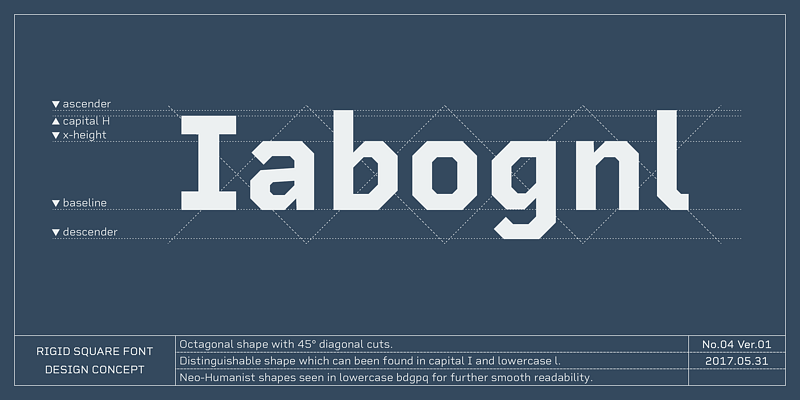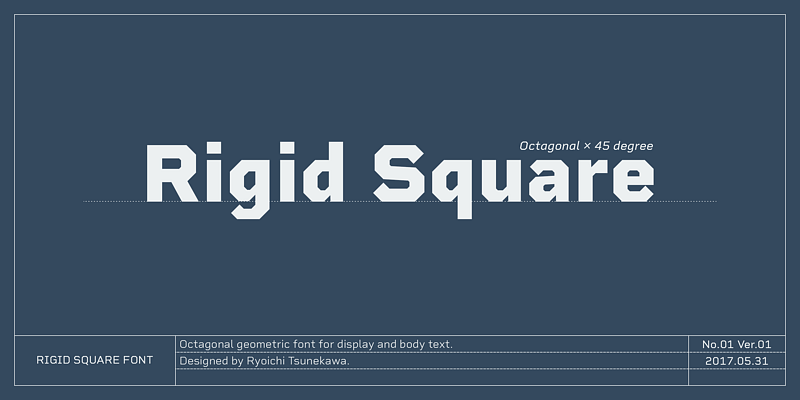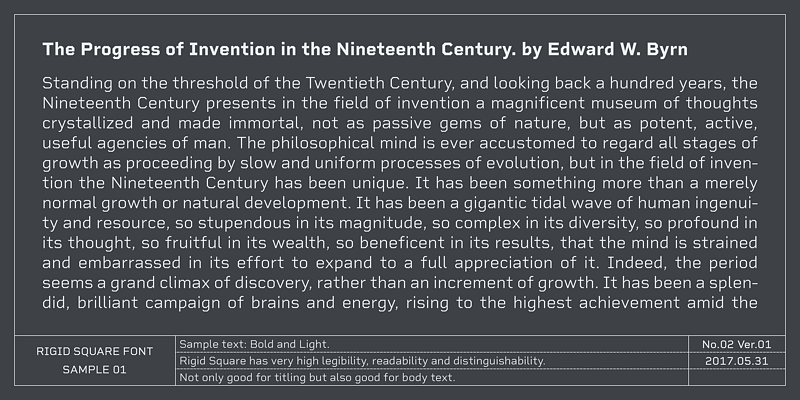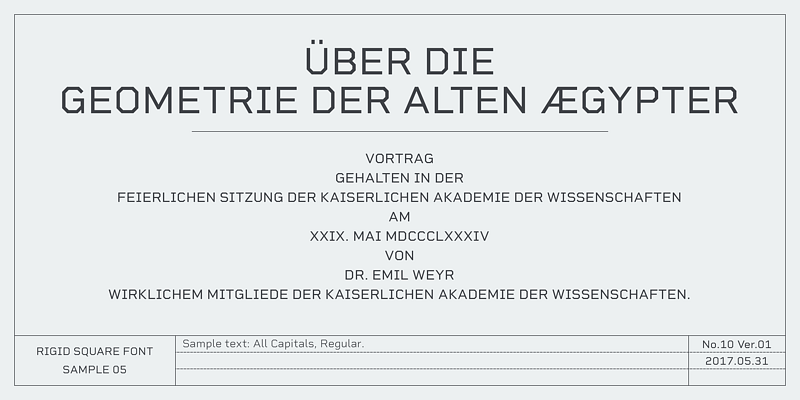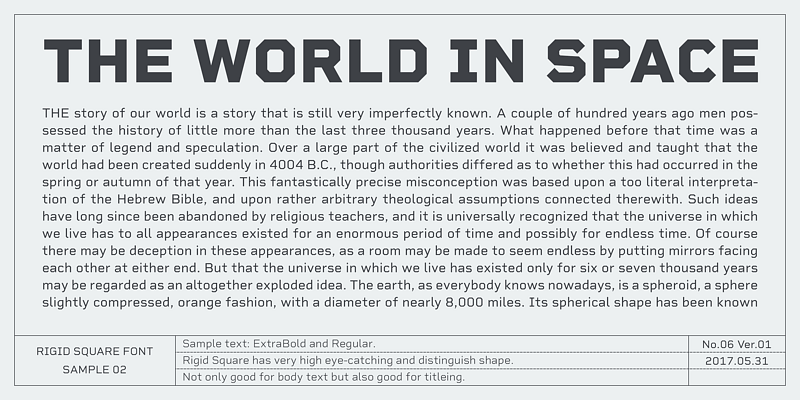
Rigid Square has a rule, Octagonal shape and 45 degree cuts.
Very geometric shape but designed especially for body text, long sentence such like a mechanical instructions.